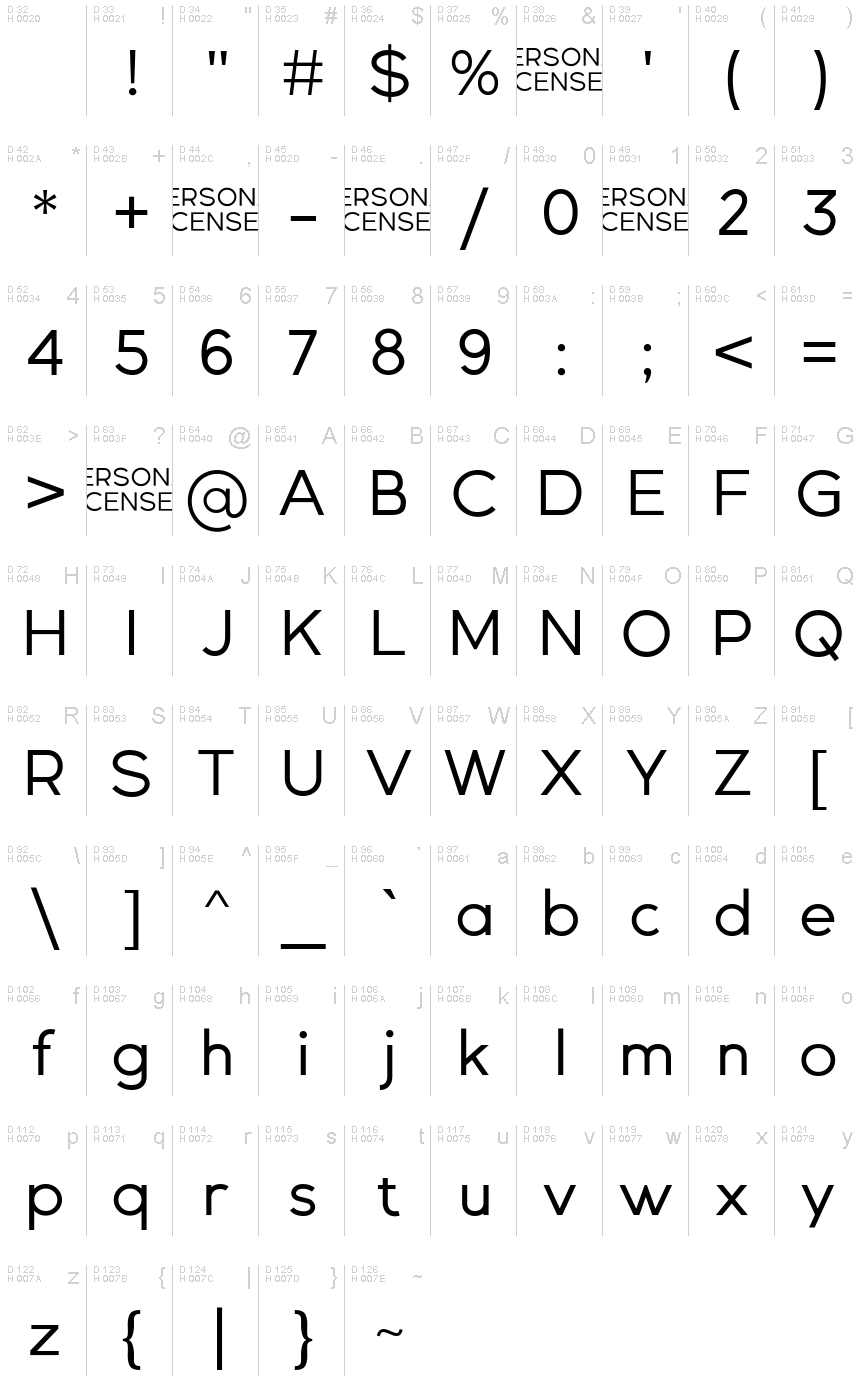
Gexo Sans Regular
Gexo Sans emerges as a sans serif revelation, boasting a sleek and modern charm that Java Pep has masterfully crafted. Its clean lines and unembellished forms speak to a minimalist aesthetic, while its balanced proportions convey a sense of harmony and readability. The font's character shines through its subtle yet distinct quirks, like the gentle curve of the "e" and the sharp cut of the "x," which add personality without overwhelming.
The versatility of Gexo Sans makes it an excellent choice for a wide range of design applications. Whether it's gracing the pages of a chic magazine layout, standing out on digital interfaces or adding sophistication to branding materials, its understated elegance ensures that it performs with both function and flair in any context. Gexo Sans is not just another typeface; it's a harmonious blend of contemporary style with functional design precision.